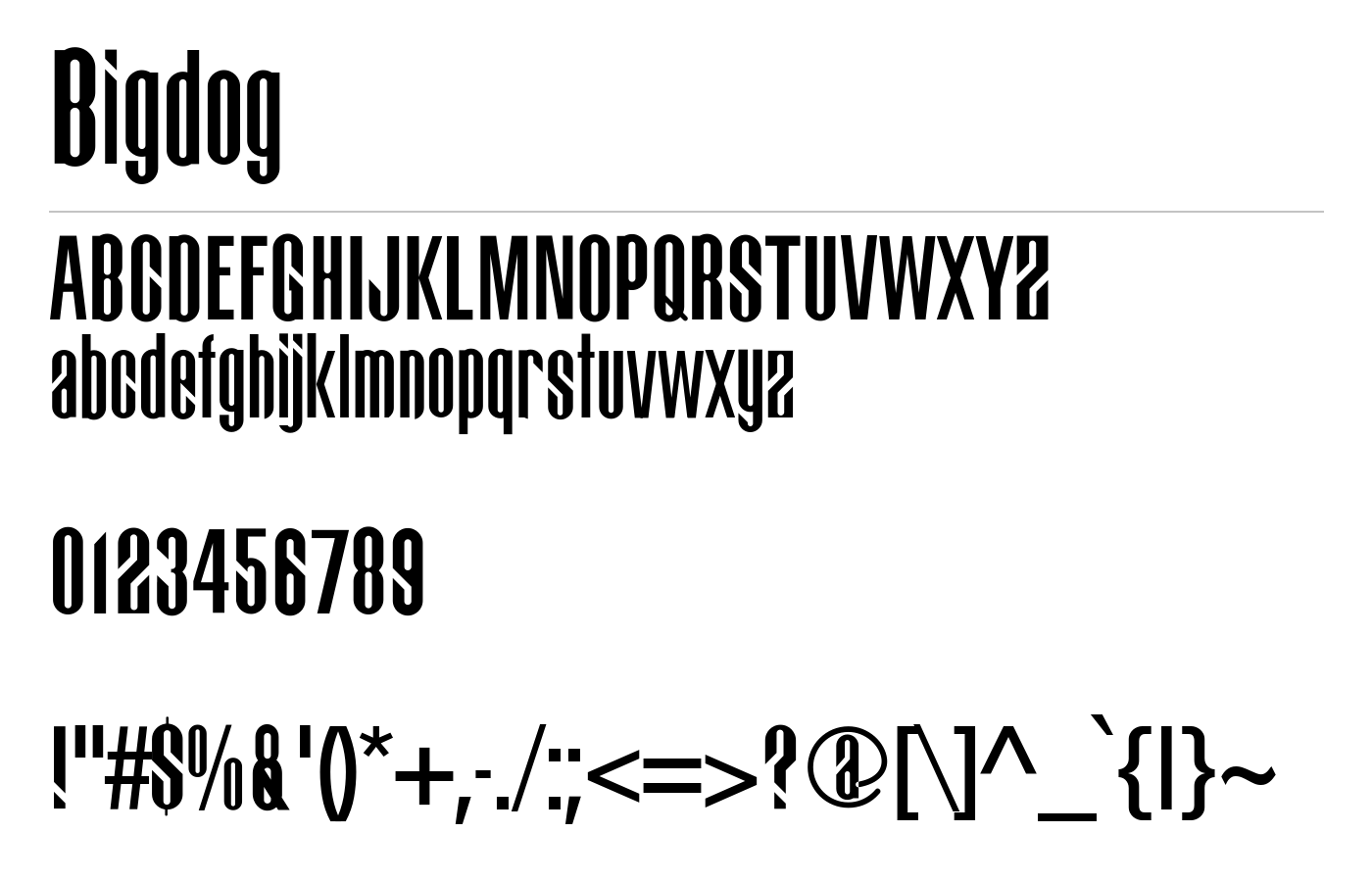
Bigdog is a bold, condensed sans serif font with a strong vertical emphasis and high stroke contrast that gives it a striking, modern look. Its tall, narrow letterforms and unique angular cuts add a dynamic and edgy personality, making it ideal for impactful headlines, branding, and posters where a bold statement is needed. This font works well for contemporary designs seeking a confident and urban vibe.
Bigdog Font
About Bigdog Font
| Font family | Bigdog Font |
| Designer | Justin Biddle |